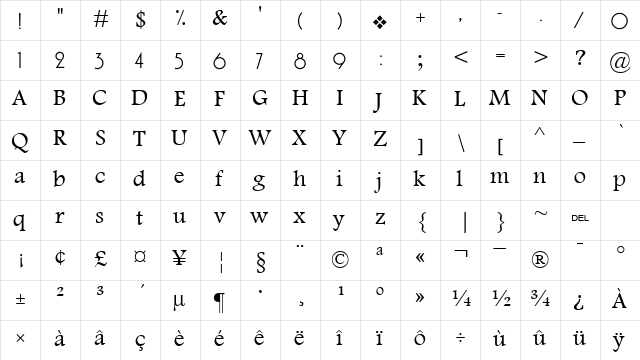
Design Context for Motken daeira Typeface
Motken daeira is a composed and adaptable typeface that performs quietly and consistently across a wide range of design contexts.